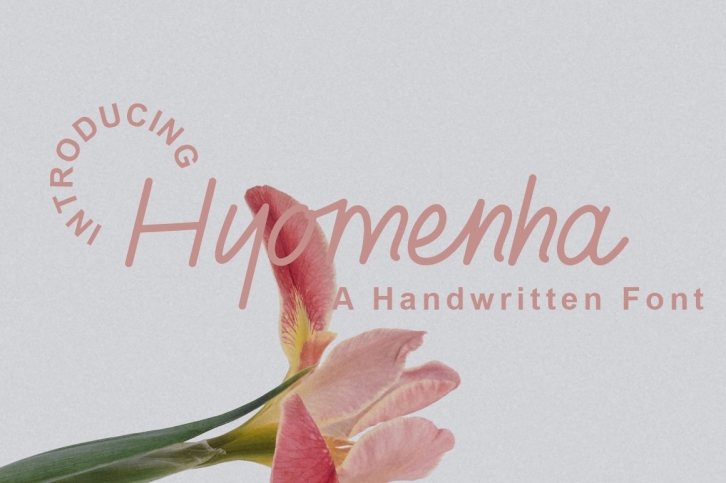
Hyomenha is a great font that was designed by Lafitte 58. Imagine the amount of combinations you can create using this font! The archive is 20.16 MB and it was released on February 24, 2021. Hyomenha looks beautiful on wedding invitations, greeting cards, logos, posters, labels, t-shirt designs, logos, business cards and is perfect for use in ink or watercolor works, fashion, magazines, packaging and food menus, children's books and more!